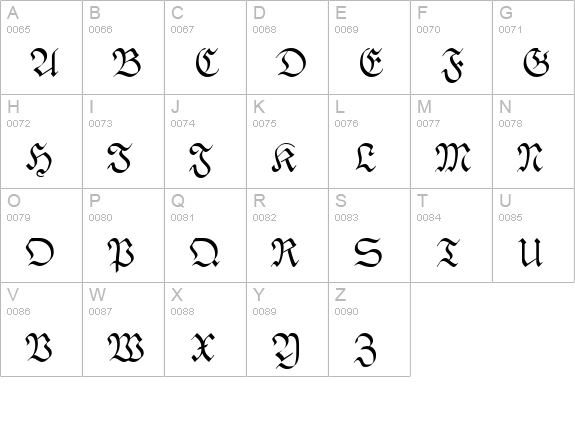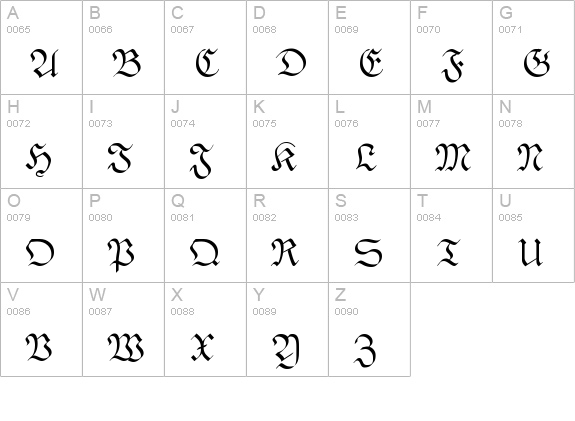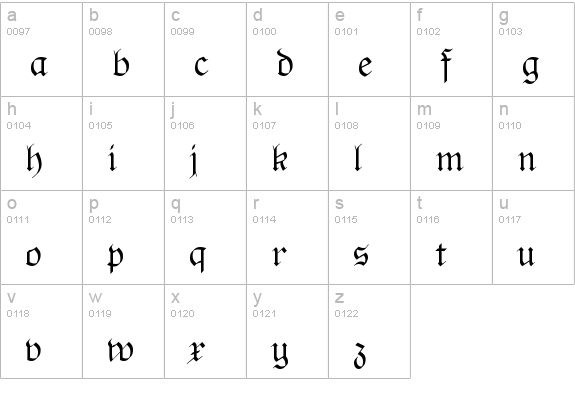
PhederFrack Font Details
Introducing PhederFrack, a captivating font that effortlessly combines modern aesthetics with a hint of vintage charm. Designed to make a lasting impression, PhederFrack boasts bold, clean lines while maintaining a sense of elegance and sophistication. With its unique letterforms and graceful curves, this font is perfect for a wide range of creative projects, from logos and branding to editorial design and beyond. What sets PhederFrack apart is not only its striking visual appeal but also its accessibility, as it is a free font that is readily available for download at FontsMarket.com. Now, designers and creatives alike can elevate their work without any limitations or constraints. PhederFrack's versatility knows no bounds, making it an ideal choice for both digital and print applications. Whether you're aiming to convey a sense of professionalism or seeking to add a touch of artistic flair, PhederFrack offers the perfect balance of functionality and artistic expression. Its legibility ensures that your message is delivered clearly, while its unique character sets it apart from the crowd. This font truly has it all - style, substance, and the freedom to unleash your creativity. So why wait? Download PhederFrack today from FontsMarket.com and unlock a world of design possibilities. With this free font at your disposal, you have the power to create captivating visuals that leave a lasting impression. Embrace the freedom that PhederFrack offers and let your creativity soar to new heights.